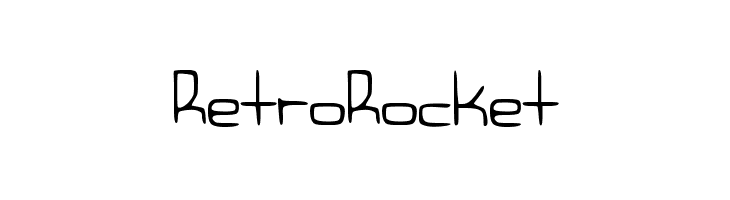
( Rocco Pisani - roccopisani.com )
A retro-futuristic font with elongated, narrow characters and a playful, modern touch.
A whimsical, decorative font with tall, narrow letterforms and playful elements.
A bold, italicized font with a modern, geometric style and rounded edges.
An elegant, flowing script font with a handwritten style.
A futuristic, angular font with a bold and geometric design.
A bold, italicized font with a futuristic and dynamic design.
A cursive, handwritten font with elegant, flowing strokes.
A bold, geometric italic font with a futuristic and dynamic style.